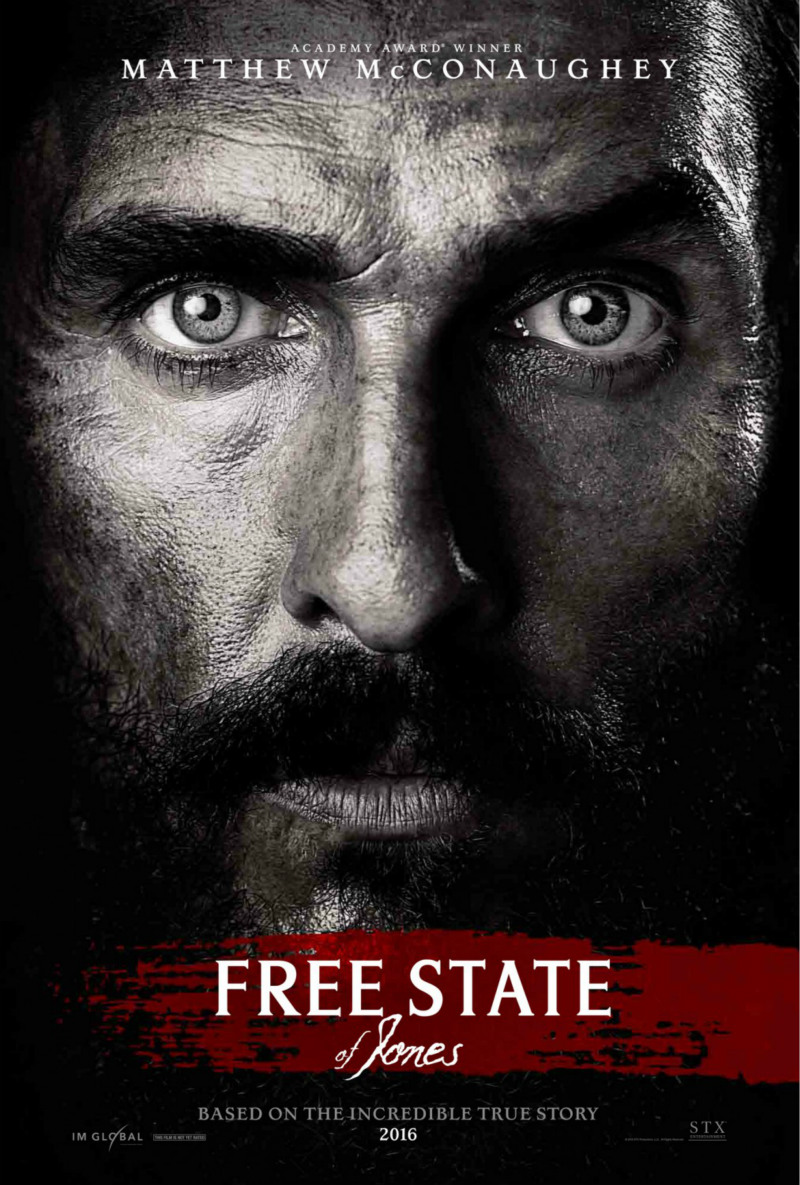
Free State of Jones Font
Fonts in UseFree State of Jones is a historical drama film released in 2016, based on the true story of Newton Knight, a Confederate deserter who leads a rebellion against the Confederacy during the American Civil War, establishing a mixed-race community in Mississippi.
In the poster, the film title "Free State of Jones" combines a bold serif font, resembling Silverado Medium Condensed by Steve Jackaman, for "Free State," while the script font "of Jones" is portrayed in Caligraf 1435 by Galdino Otten.